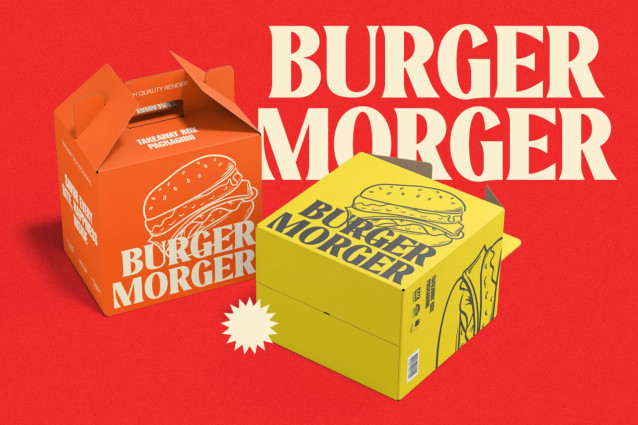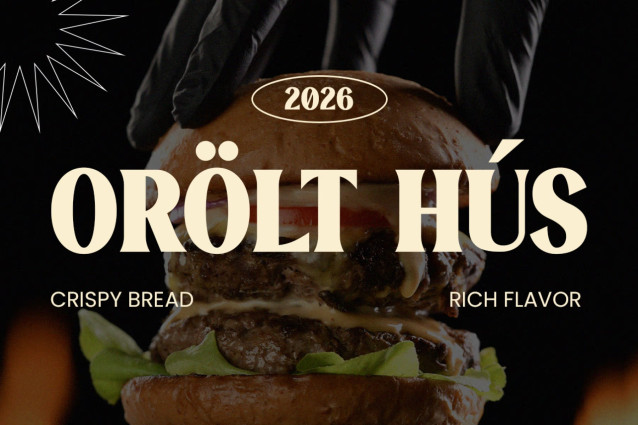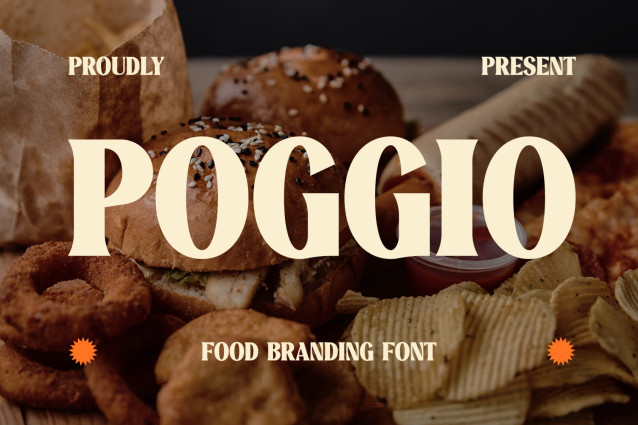
Poggio Font
Poggio Font brings a bold personality to food-inspired designs. Its strong shapes and retro display style attract attention instantly. Moreover, the thick curves create a powerful visual impact in headlines. At the same time, the playful letterforms add warmth and charm.
Because of this balance, the font feels both nostalgic and modern. In addition, Poggio stays clear and readable in large promotional layouts. Therefore, it works perfectly for eye-catching titles and branding visuals. Even better, the font supports 67 languages, allowing brands to reach wider audiences.